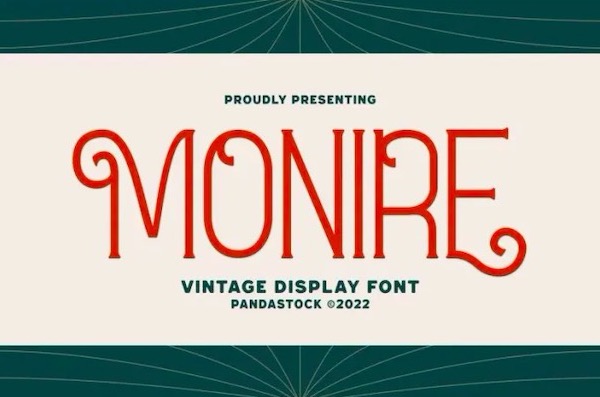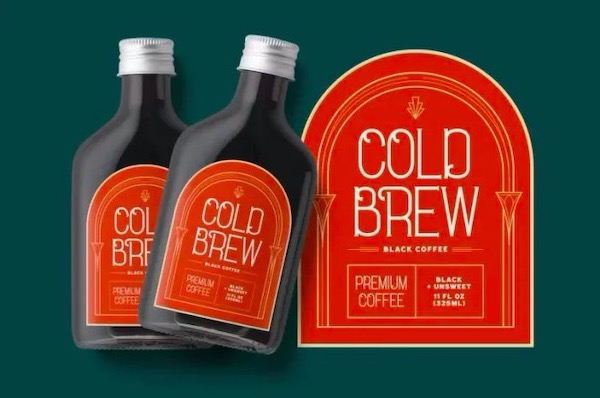
Monire is a luxury and versatile display font with a retro and vintage look. It features neat beautiful ligatures and smooth curves that make your project more attractive. This font works in both large and small sizes. This font is suitable for a wide variety of projects such as invitations, logos, branding, magazine, photography, card, product packaging, mugs, quotes, poster, labels, signatures, and more.
Monire Display Vintage Font